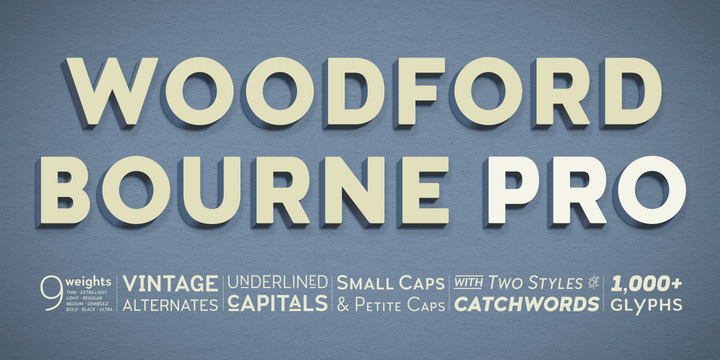
Woodford Bourne PRO Font
Woodford Bourne PRO Font is perfect for prestigious law firms, heritage financial institutions, luxury whiskey brands, traditional gentlemen's clubs, classic menswear labels, distinguished investment companies, exclusive private banking, aristocratic family crests, high-end tobacco products, and sophisticated cigar lounge branding.
What makes Woodford Bourne PRO Font so exciting is its extraordinary ability to embody old-world sophistication and distinguished heritage through letterforms that seem to carry the weight of generations of tradition and refined taste. This distinguished typeface captures the essence of British aristocracy and American refinement with characters that radiate authority, prestige, and timeless class. The font's heritage design elements perfectly balance historical gravitas with contemporary professional appeal, creating an indispensable tool that communicates established excellence, cultural sophistication, and distinguished pedigree, making it essential for brands and institutions that have earned their reputation through generations of excellence and unwavering quality standards.
Woodford Bourne PRO Font comes in multiple font families including Regular, Bold, Light, Italic, Bold Italic, Heritage, Distinguished, and Classic variations. Each family member maintains the core aristocratic characteristics while offering different authority levels and stylistic approaches to suit various prestigious design requirements.
The Woodford Bourne PRO Font Free Download offers designers an incredible opportunity to incorporate authentic heritage sophistication into projects that demand the highest levels of credibility and distinguished appeal. This remarkable typeface distinguishes itself through its unique ability to communicate themes of established excellence, cultural heritage, and institutional authority. Whether you're developing prestigious law firm identities, creating luxury spirit branding, or designing exclusive club materials, this font ensures your message conveys the dignified authority and cultural sophistication that discerning clientele expect from truly distinguished institutions.
The institutional precision in Woodford Bourne PRO Font makes it particularly effective for established professional services and luxury heritage brands where conveying decades or centuries of trusted excellence is crucial for maintaining market leadership and client confidence. Its authoritative letterforms work exceptionally well across all traditional and modern applications, from legal documents to luxury packaging, maintaining consistent prestigious impact and professional gravitas.
Heritage branding professionals recognize how Woodford Bourne PRO Font transforms ordinary corporate communications into powerful declarations of institutional authority and cultural distinction. The typeface's distinguished character set includes comprehensive professional symbols, traditional elements, and international language support that accommodates complex institutional requirements and global heritage brand applications.
For creative professionals serving established law firms, luxury heritage brands, and distinguished institutions, Woodford Bourne PRO Font serves as the ultimate foundation for creating memorable visual identities that capture the essential qualities of institutional excellence, cultural sophistication, and distinguished heritage that define successful brands with generations of proven excellence and unwavering commitment to quality.